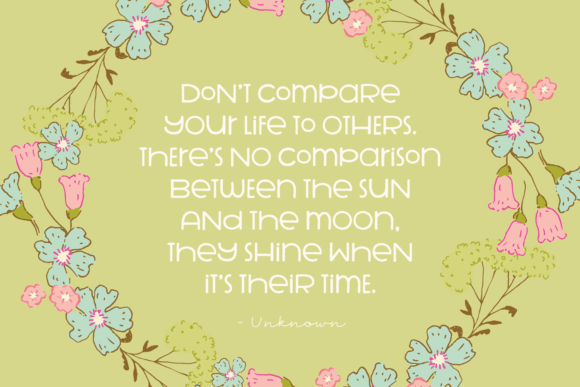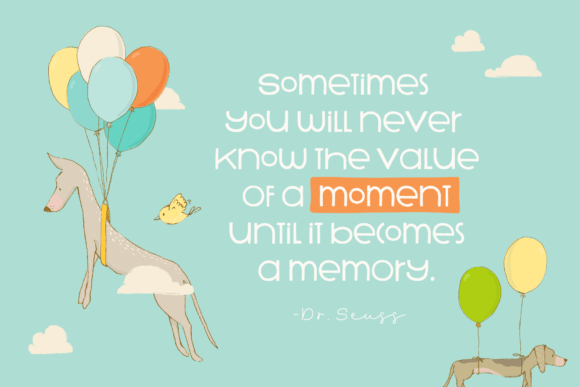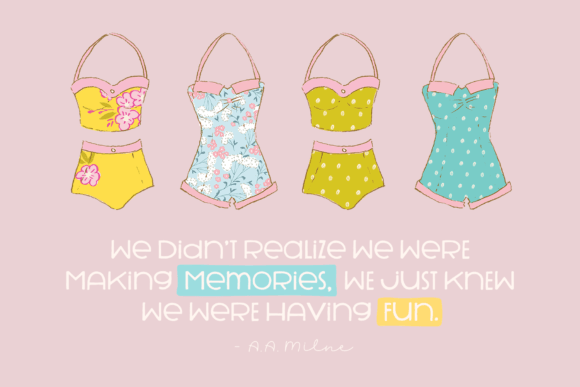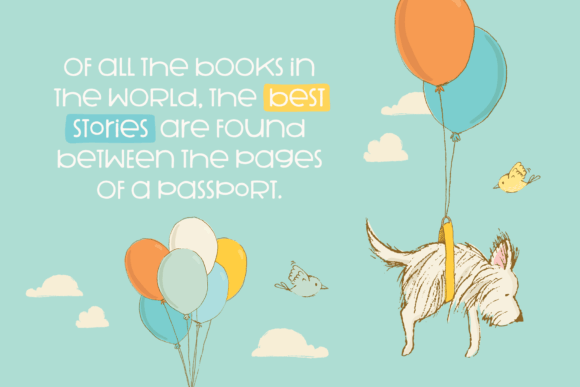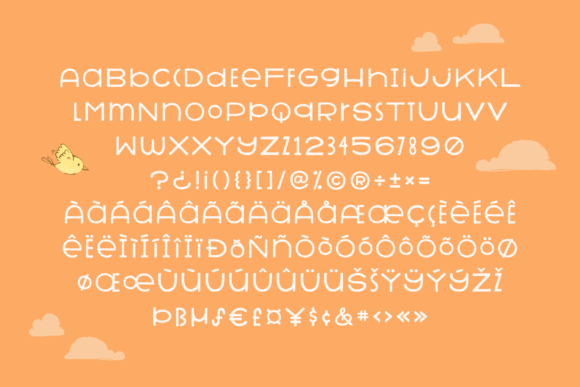
The Perfect Picnic Companion: Breezy Picnic Font
I’ll never forget the design project that led me to discover Breezy Picnic Font. I was working on a whimsical outdoor-themed branding campaign, and I was on the hunt for a font that could capture the carefree essence of a summer picnic. After hours of scrolling through font libraries, I stumbled upon Breezy Picnic, and it was love at first sight! 😍
A Sweet and Simple Sans Font
Breezy Picnic is a hand-drawn sans font that strikes the perfect balance between playfulness and readability. Its thin lines and wide characters make it a great choice for designs that need to be legible, even at small sizes. But what really sets it apart is its unique character – a mix of upper and lowercase letters that gives it a fun, laid-back vibe.
- ✨ Sweet and simple design that’s perfect for outdoor or food-related projects
- 💡 Unique character that adds a touch of whimsy to any design
- 🎉 Works beautifully in large sizes, making it perfect for headlines or titles
While Breezy Picnic is an amazing font, it’s not without its quirks. For example:
- 🤔 It may not be the best choice for very formal or professional projects, as it has a distinctly casual feel
- ⚠️ Some characters may appear a bit thin or delicate, which can make them harder to read in certain contexts
The Story Behind Breezy Picnic
Breezy Picnic was designed with the intention of capturing the carefree essence of a summer picnic. Its creator wanted to create a font that was both fun and legible, perfect for designs that needed a touch of whimsy. And with its unique character and sweet, simple design, it’s no wonder Breezy Picnic has become a favorite among designers and crafters.
Q: Does Breezy Picnic come with any OpenType features?
A: Yes, Breezy Picnic includes a range of OpenType features, including ligatures and stylistic alternates, to help you add some extra flair to your design.